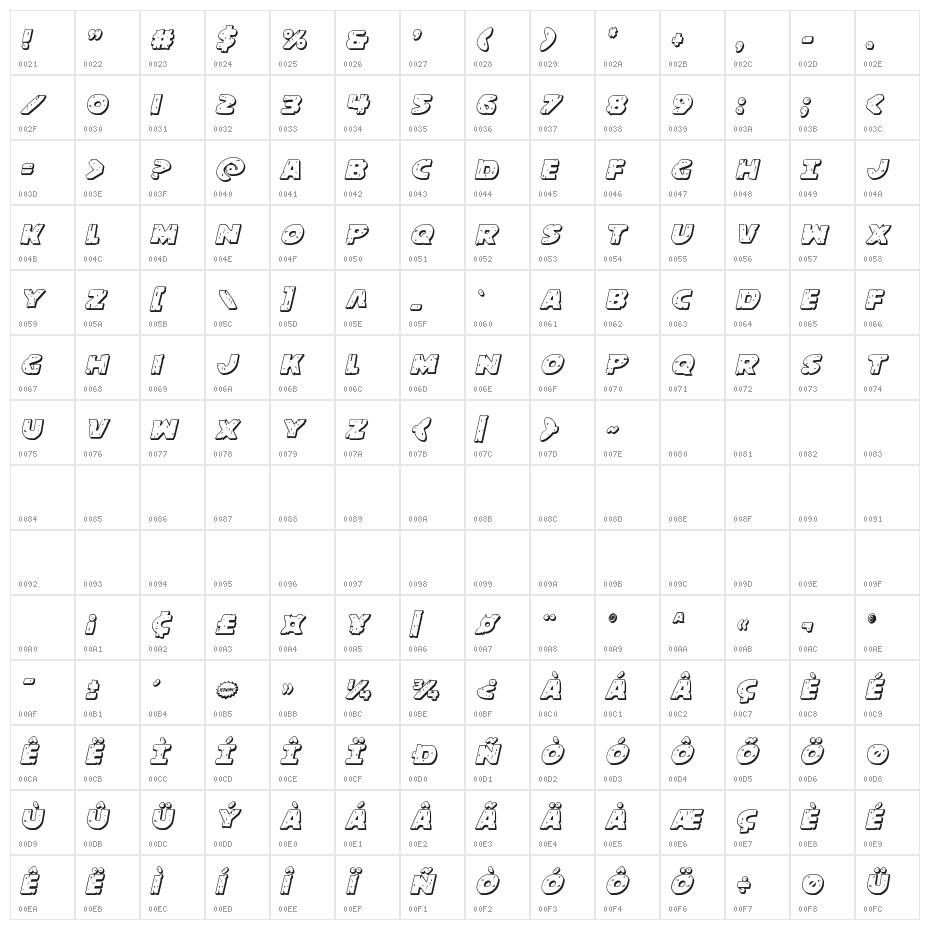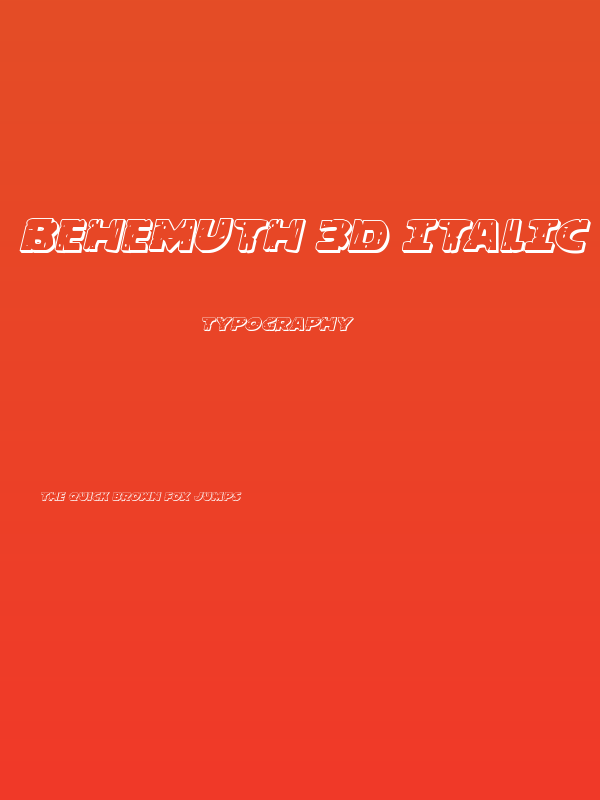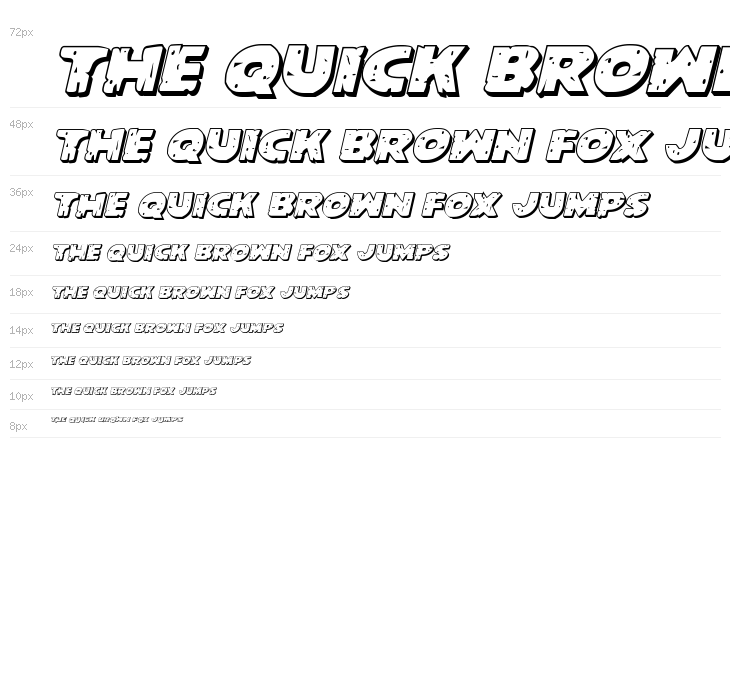
Behemuth 3D Italic Font
Behemuth 3D Italic Description
This font features a bold, three-dimensional design with an italic slant, giving it a dynamic and playful appearance. The characters are outlined with a thick black border, enhancing the 3D effect and making them stand out. Each letter and number is filled with a pattern of small, irregular shapes, adding a textured look. The overall style is cartoonish and fun, making it ideal for creative and informal projects. The font maintains consistent weight and width across all characters, ensuring uniformity in design.
| Proposed Projects | Ideal for comic book titles, children's book covers, playful posters, and video game graphics. |